Choose Best Fonts for Gas and Electricity Companies (Professional & Modern Choices)
When it comes to branding for gas and electricity companies, choosing the right font is crucial. Your typography should convey trust, reliability, and innovation—qualities that energy providers want to emphasize. Whether you’re designing a logo, website, or marketing materials, the font you pick can make or break your brand’s perception.
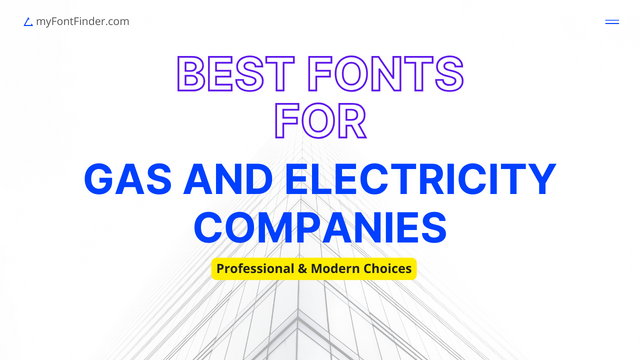
What Makes a Good Font for Gas & Electricity Companies?
Before diving into specific fonts, let’s look at key characteristics:
✅ Strong & Bold – Represents power and stability (e.g., sans-serifs like Helvetica Bold)
✅ Clean & Modern – Reflects innovation (e.g., Montserrat, Futura)
✅ Trustworthy & Professional – Avoid overly decorative fonts (e.g., Times New Roman, Arial)
✅ Legible at Small Sizes – Important for bills, websites, and signage